Handwritten Invitation Script Font #1
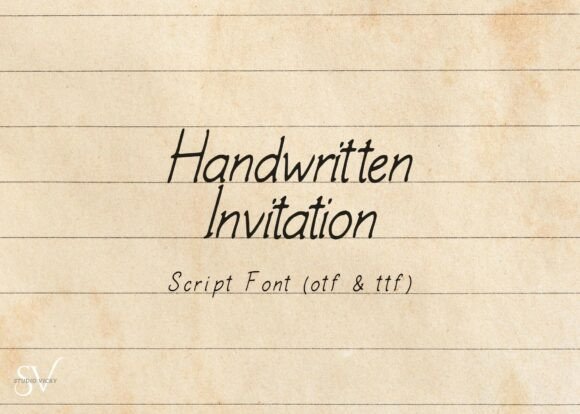
If you are looking for a typeface that is graceful, modern, and effortlessly charming, the Handwritten Invitation Script is the perfect choice. This adobe script font is designed to add a personal, polished touch to your designs, featuring flowing, natural strokes that beautifully mimic real handwriting. It strikes the perfect balance between high-end elegance and heartfelt warmth.
- Event Stationery: Ideal for romantic wedding invitations, save-the-dates, and thank-you notes.
- Professional Branding: Creates chic business logos that feel approachable and sophisticated.
- Heartfelt Correspondence: Perfect for greeting cards that require a special, handmade feel.
- Digital Design: Adds a stylish charm to social media graphics and web overlays.
Bodhitaara Script Font #2
If you are looking for a light and elegant handwritten typeface that blends grace with modern simplicity, Bodhitaara is an exceptional choice. As a refined adobe script font, it features letters thoughtfully drawn with gentle curves and smooth connections, creating a perfect sense of balance. Its delicate strokes are ideal for designs intended to convey calmness, beauty, and authenticity.
- Minimalist Branding: Ideal for logos and identity systems that require a sophisticated, personal touch.
- Lifestyle & Wellness: Perfect for journals, inspirational quotes, and stationery that promote a sense of peace.
- International Projects: Supports languages such as Spanish, French, German, Portuguese, and Italian.
- Social Media & Print: Adds a timeless elegance to posters, flyers, and Instagram graphics.
Simple Brittany Script Font #3
If you are looking for a typeface that radiates warmth and friendliness, Simple Brittany is a casual and creative choice. This adobe script font features round, playful strokes that create a relaxed and approachable feel, making it perfect for personal projects and designs that need a human touch. Its charming, hand-drawn aesthetic adds a fun and unique character to any layout.
- Personal Projects: Adding a cozy, handmade vibe to journals or scrapbooks.
- Social Media Graphics: Creating friendly and engaging posts that feel authentic to your audience.
- Invitations: Perfect for casual gatherings, birthday parties, or “thank you” cards.
- Creative Branding: Ideal for small businesses or boutiques that want to appear approachable and fun.
Handwritten Script and Sans Font #4
If you are looking for a comprehensive design solution, Handwritten Script and Sans is a beautiful and romantic combination of two distinct fonts. This versatile package includes 9 font styles, offering a mix of elegant calligraphy and clean sans-serif characters. As a professional adobe script font, it is designed with well-balanced strokes that make it suitable for an incredibly wide range of creative purposes.
To get the most out of this adobe script font, you can use programs that support OpenType features—such as Adobe Illustrator or Adobe Photoshop—to access its extensive library of alternates, ligatures, and decorative swashes. It is a fantastic choice for:
- Cohesive Branding: Use the script for logos and the sans-serif for taglines to ensure a perfect visual match.
- Wedding & Event Stationery: Create romantic invitations and signs with beautiful initial and final letter flourishes.
- Product Packaging: Ideal for labels, mugs, and book covers where you need a “handmade” yet professional look.
- Marketing Materials: Perfect for posters and social media quotes that require a dynamic, multi-font layout.
Samantha Handwriting Script Font #5
If you are looking for a typeface that radiates warmth and friendliness, Samantha Handwriting is a casual and creative choice. This adobe script font features round, playful strokes that create a relaxed and approachable feel, making it perfect for personal projects and designs that need a human touch. Its charming, hand-drawn aesthetic adds a fun and unique character to any layout.